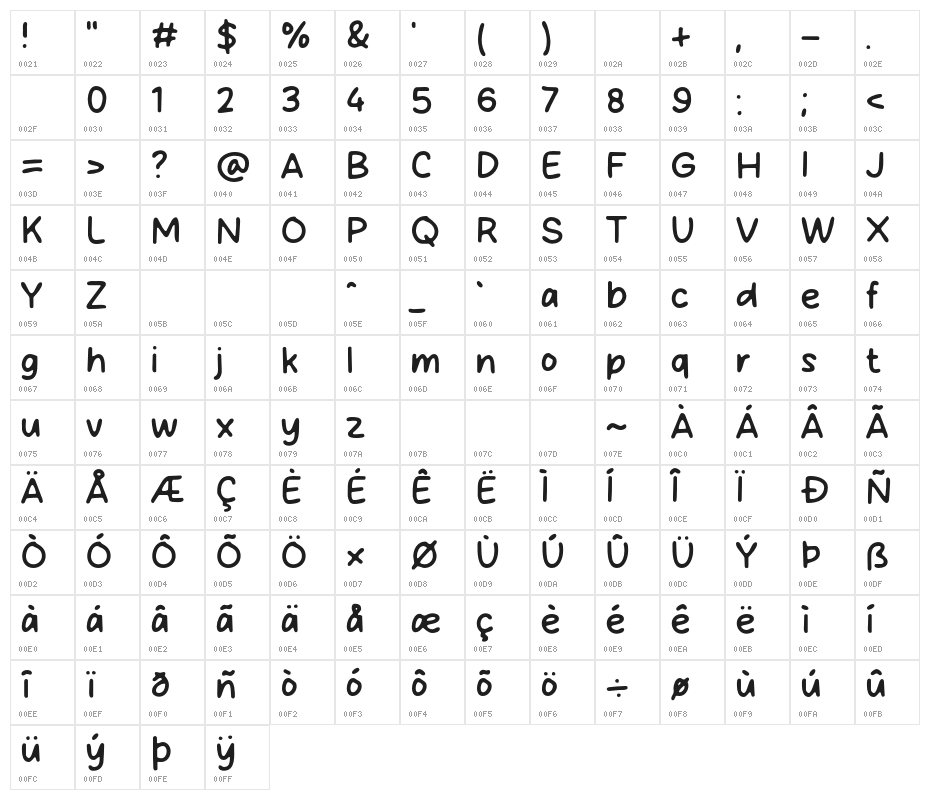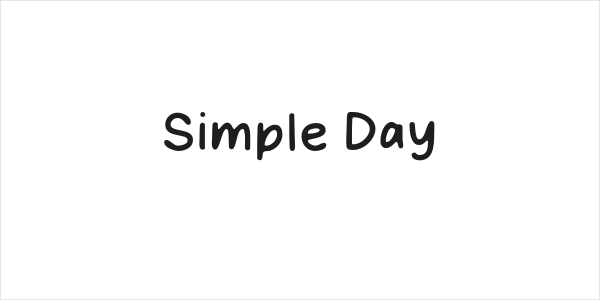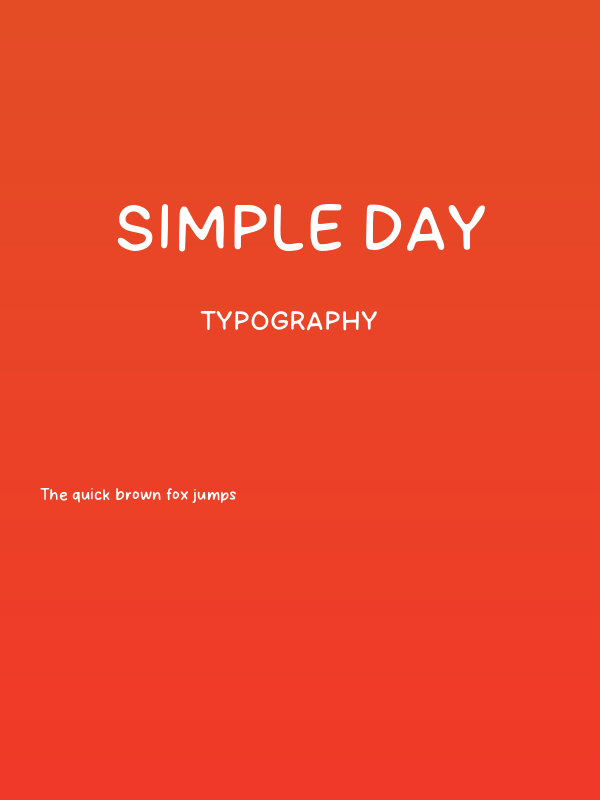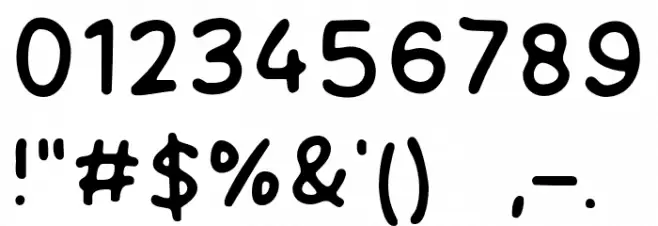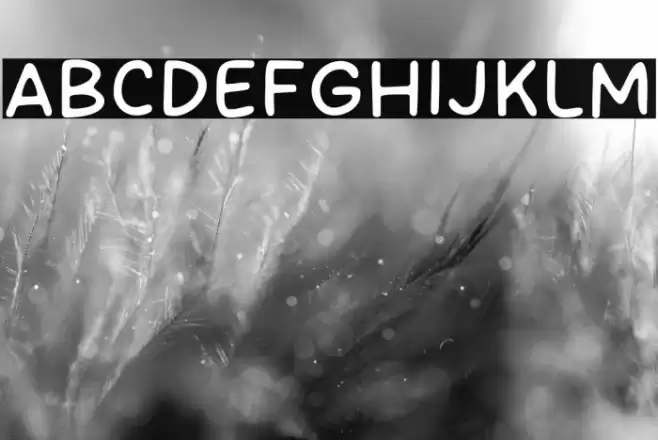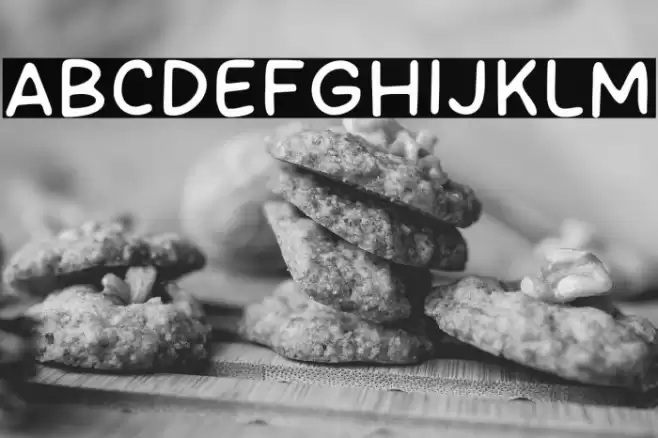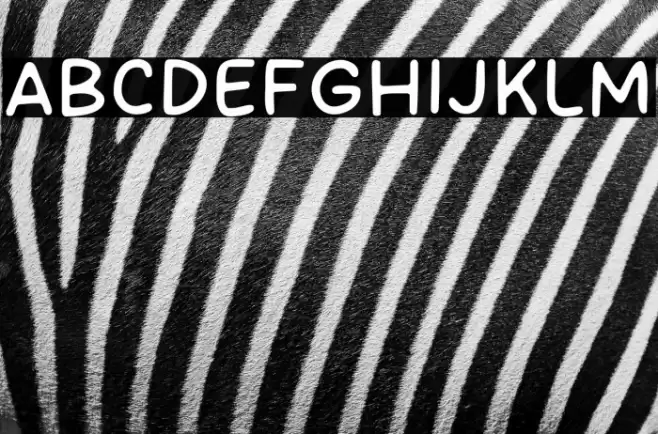
Simple Day Font
Simple Day Description
This font features a playful and informal style, characterized by its rounded and slightly irregular letterforms. The strokes are consistent in thickness, giving it a uniform appearance while maintaining a hand-drawn aesthetic. The characters are well-spaced, ensuring readability and a friendly tone. The font includes a full set of uppercase and lowercase letters, numbers, and a variety of special characters, making it versatile for different uses. Its casual and approachable design makes it suitable for projects that aim to convey warmth and friendliness.
| Use Case | Headlines, Informal text, Branding |
| Proposed Projects | Ideal for children's books, casual invitations, greeting cards, and playful branding. |